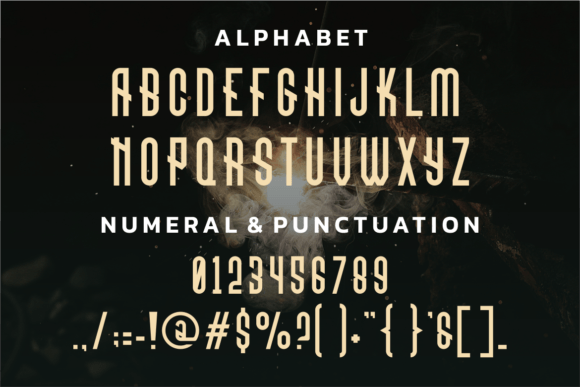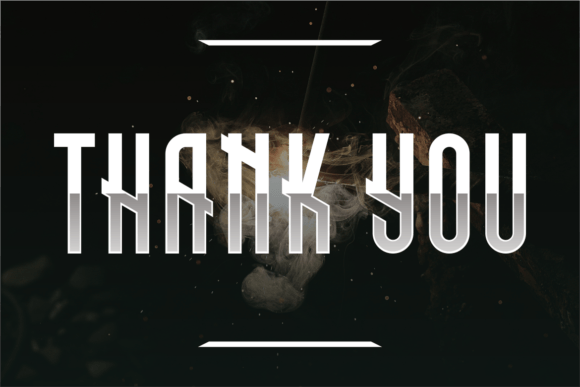
Introduction to Logars Font
As a designer, there’s nothing quite like the thrill of discovering a new font that perfectly captures the essence of your creative project. You’re brainstorming ideas for a client’s wedding invitation, and suddenly, you stumble upon a font that transports you to a world of elegance and sophistication. This is exactly what happens when you come across Logars Font – a stunning display font that exudes high quality and style.
Whether you’re working on a high-end branding project or a simple greeting card, Logars Font is the perfect design resource to add a touch of personality to your work. Its unique character and versatility make it an invaluable asset for designers looking to create something truly special.
Key Features of Logars Font
- Unique, modern design with a transparent background, allowing for versatile usage
- Supports a wide range of languages, making it a great addition to any international design project
- Perfect for use in graphic design, digital art, and other creative pursuits
Honest Review: Logars Font
As a designer, I’m always on the lookout for high-quality fonts that can elevate my creative projects. Recently, I stumbled upon Logars Font, and I must say, it’s been a game-changer. This free download has been a valuable addition to my design resource library.
What works well is the font’s versatility. It comes with a transparent background, making it easy to integrate with any design. The Logars Font also has a sleek, modern aesthetic that works perfectly for digital projects, from logos to web pages.
- ✨ High-quality design: The Logars Font has a professional, polished look that’s perfect for any creative project.
- ✨ Versatile: The font is suitable for a wide range of design applications, from print to digital media.
While Logars Font is an excellent resource, I do have a few minor criticisms. The font family is relatively small, and there aren’t as many variations as some other fonts in my library. ⚠️ Additionally, the font’s bold weight can sometimes be a bit too bold for certain design applications.
Overall, I’m impressed with Logars Font. It’s a solid addition to any designer’s library, and its free download makes it a must-have for anyone looking to elevate their creative projects.
Logars Font is a high-quality, free download design resource ideal for creative projects. Its transparent background makes it versatile for various applications.
Logars Font is suitable for various creative projects, including logos, business cards, brochures, and social media graphics. Its unique style makes it an excellent choice for designers looking for a distinctive and high-quality design resource.